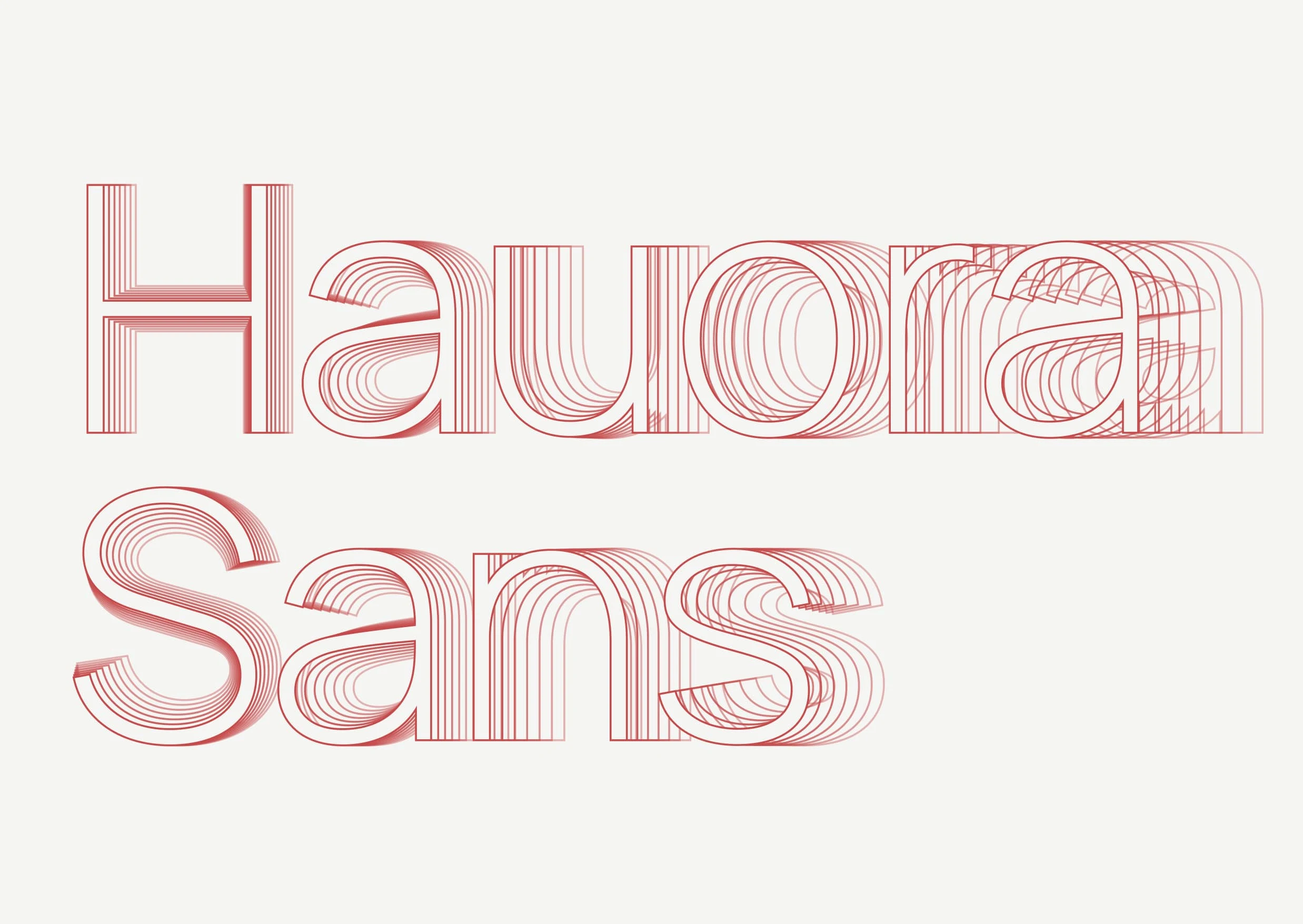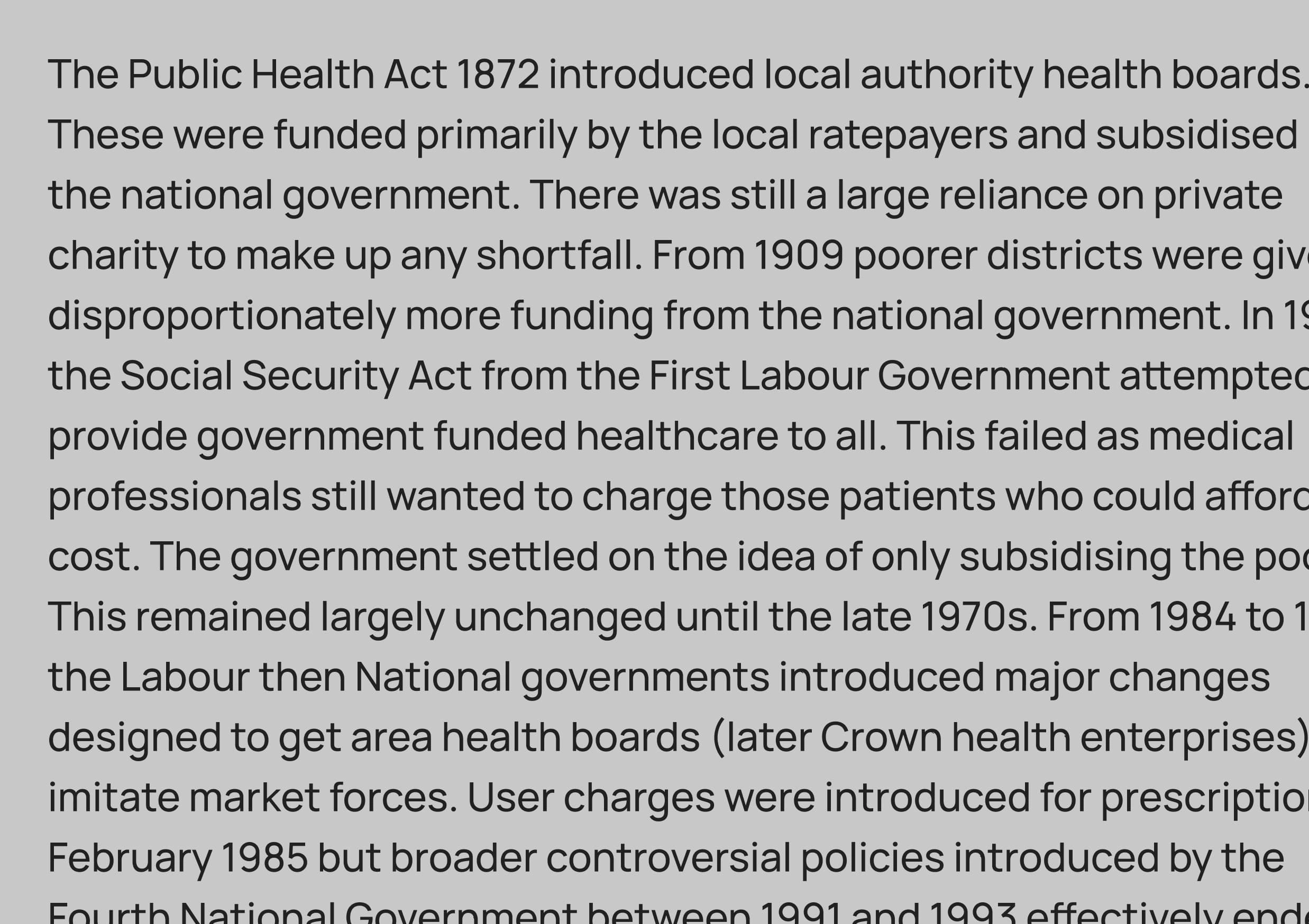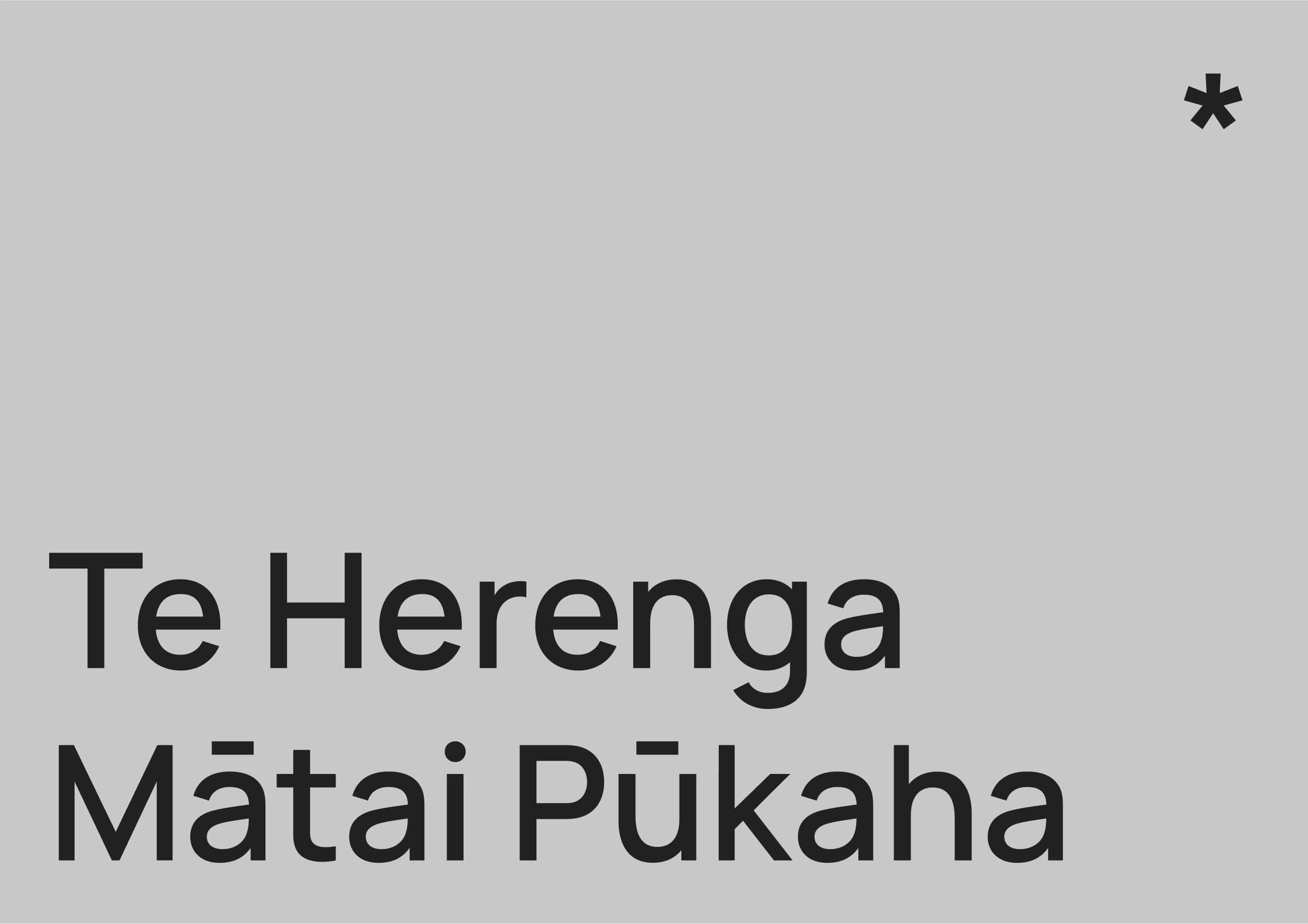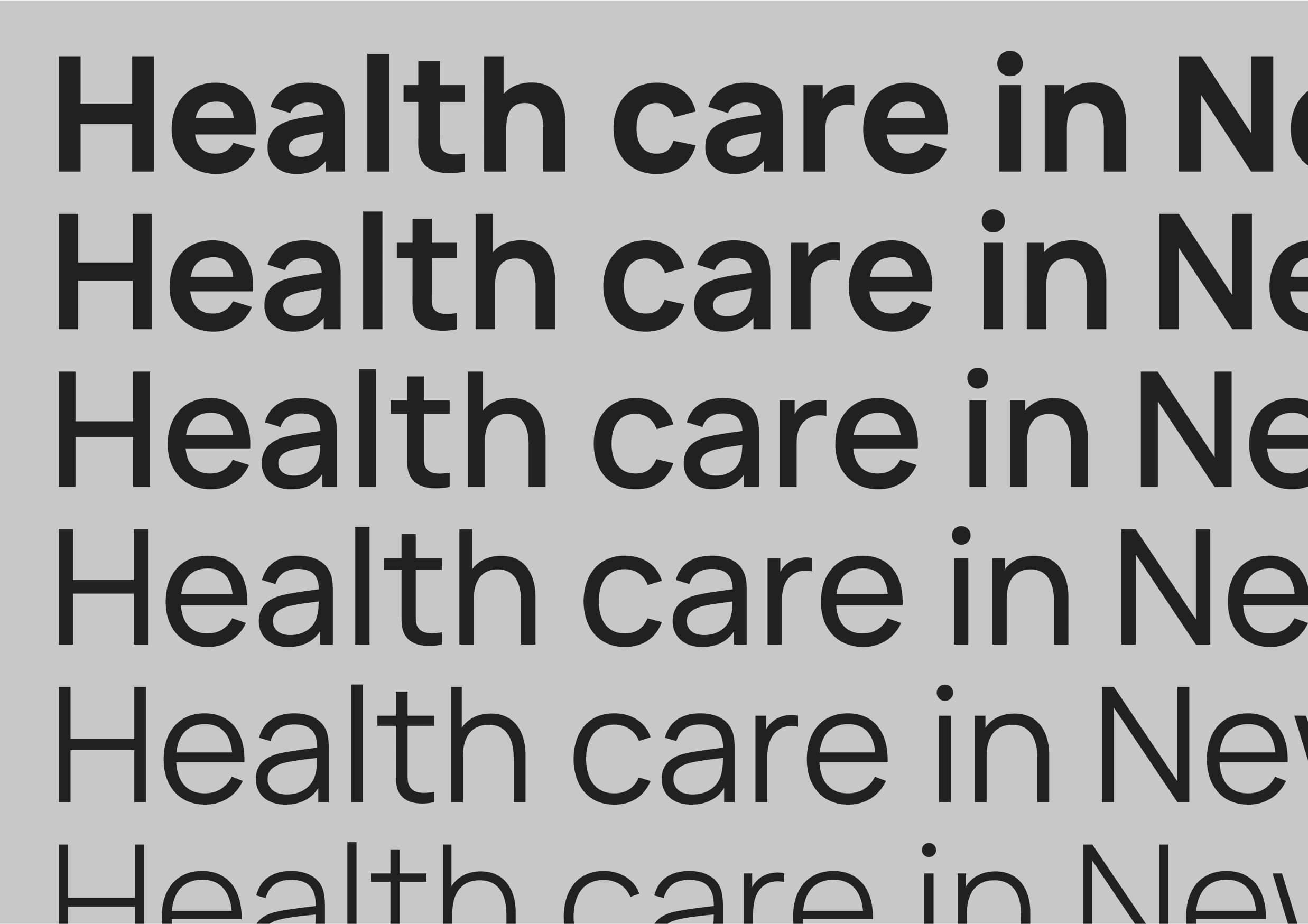
Custom typeface design for health research initiative
Custom neo-grotesque sans-serif typeface developed for an open-source health research initiative. Designed for clarity, accessibility and adaptability across print and digital platforms, with multilingual support and a range of custom weights.
Designed a custom typeface for a health research initiative.